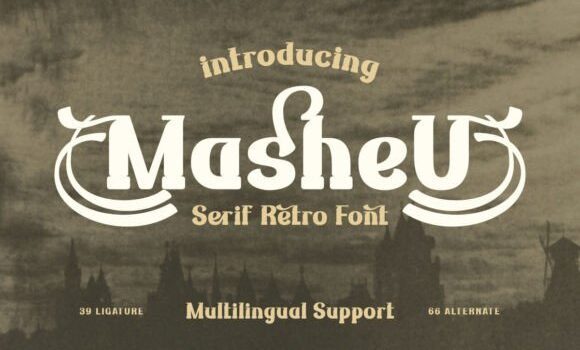
masheu
Masheu Font – Free Download Introduction to Masheu Font Masheu is a classic serif font that depicts elegance and perfection in every line and curve of the letters. 📸 Preview Gallery 6 images 📌 Product Name Masheu Font 👤 Author